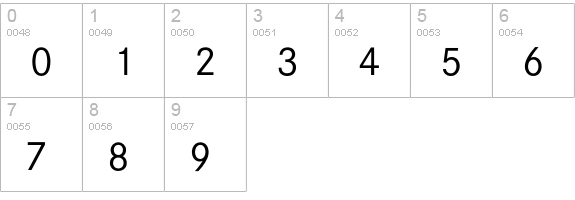
Corporate S BQ Regular is the standard, neutral variant in the Corporate typeface family \xE2\x80\x94 well suited to general body text, paragraphs, and standard typographic work.
Corporate S BQ Regular font is a versatile and modern typeface that is perfect for corporate and business-related projects. With its clean lines and professional appearance, this font exudes a sense of sophistication and elegance. The sleek design of Corporate S BQ Regular makes it ideal for use in branding, advertising, and marketing materials. This font is available for free download at FontsMarket.com, making it easily accessible for designers and professionals looking to enhance their projects with a high-quality typeface. Whether you're creating brochures, presentations, or website designs, Corporate S BQ Regular is a reliable choice that will help elevate your content and make a lasting impression on your audience. Don't miss out on the opportunity to enhance your design projects with the stylish and versatile Corporate S BQ Regular font, available for free download at FontsMarket.com.